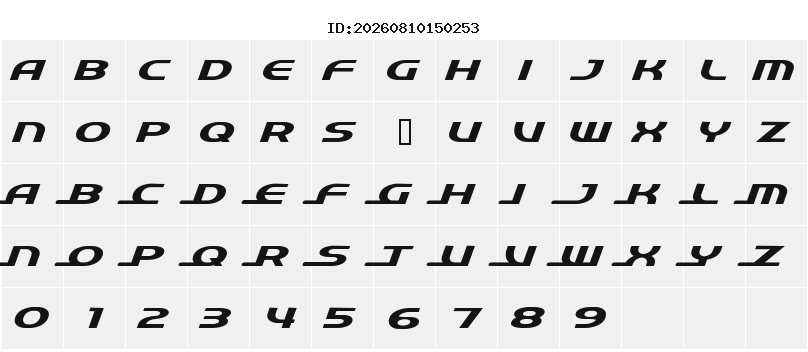
• Font Name: QuickExpress
• Full Font Name: QuickExpress
• PostScript Name: QuickExpress
About QuickExpress.ttf
QuickExpress.ttf is a modern, elegant sans-serif font designed for ultimate readability and visual harmony. Perfect for branding, headlines, web design, and print materials.